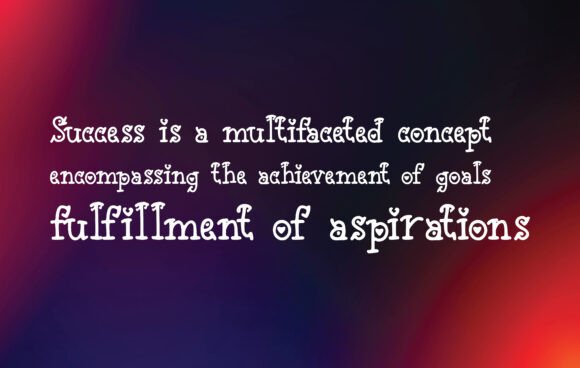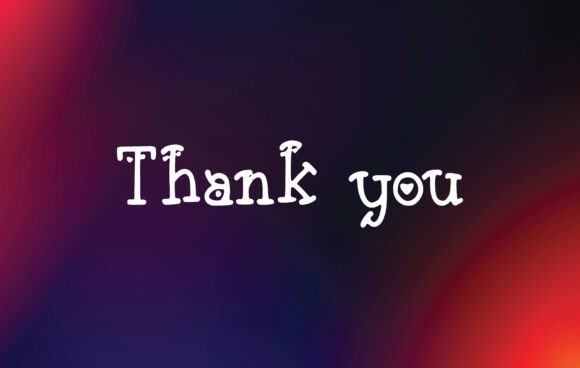
Discover the Beauty of Agustina Font: Elevate Your Designs with this Lovely Handwritten Font
Are you a designer or crafter looking for a font that can take your creative ideas to the next level? Look no further than Agustina Font, a lovely and beautiful handwritten font that is sure to impress. With its unique and elegant style, Agustina Font is the perfect choice for creating eye-catching logos, branding, and quotes that will leave a lasting impression on your audience.
What Makes Agustina Font So Special?
Agustina Font is a carefully crafted handwritten font that boasts a distinctive and charming style. Its flowing lines and curves give it a warm and inviting feel, making it perfect for designs that require a personal touch. Whether you’re creating a logo, branding materials, or social media graphics, Agustina Font is sure to add a touch of elegance and sophistication to your work.
Key Features of Agustina Font
- Unique and Elegant Style: Agustina Font has a one-of-a-kind style that sets it apart from other fonts. Its elegant lines and curves make it perfect for designs that require a touch of sophistication.
- Handwritten with Love: Agustina Font is a handwritten font that is crafted with love and care. Its imperfections and quirks give it a warm and inviting feel that is sure to resonate with your audience.
- Versatile and Flexible: Agustina Font is a versatile font that can be used for a wide range of designs, from logos and branding to quotes and social media graphics.
- Easy to Read: Despite its elegant style, Agustina Font is easy to read and understand, making it perfect for designs that require a clear and concise message.
Why Choose Agustina Font?
So why choose Agustina Font over other fonts? Here are just a few reasons why Agustina Font is the perfect choice for designers and crafters:
- Stand Out from the Crowd: With Agustina Font, you can create designs that stand out from the crowd and leave a lasting impression on your audience.
- Perfect for Branding: Agustina Font is perfect for branding materials, such as logos, business cards, and letterheads, where a professional and elegant look is required.
- High-Quality Design: Agustina Font is a high-quality font that is designed to deliver exceptional results, even at large sizes.
How to Use Agustina Font
Using Agustina Font is easy. Here are a few tips to get you started:
- Pair it with Other Fonts: Agustina Font pairs well with other fonts, such as sans-serif fonts, to create a unique and interesting design.
- Experiment with Colors: Agustina Font looks great in a variety of colors, from bold and bright to soft and pastel.
- Use it for Headings and Titles: Agustina Font is perfect for headings and titles, where a bold and eye-catching font is required.
In conclusion, Agustina Font is a lovely and beautiful handwritten font that is sure to take your creative ideas to the highest level. With its unique and elegant style, Agustina Font is the perfect choice for creating eye-catching logos, branding, and quotes that will leave a lasting impression on your audience. So why wait? Try Agustina Font today and discover the beauty of this amazing font for yourself.